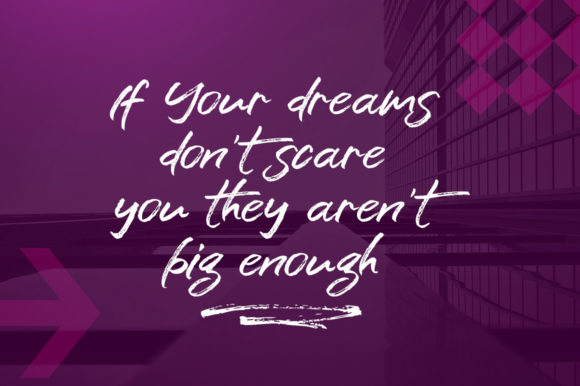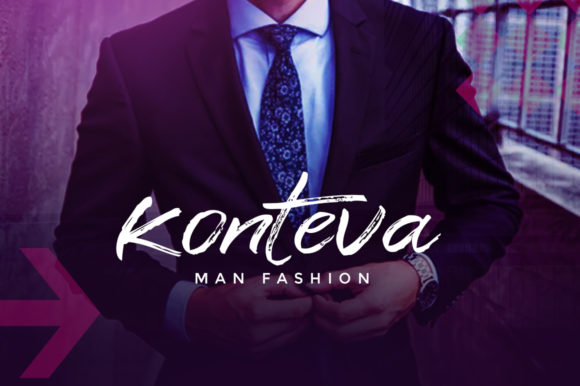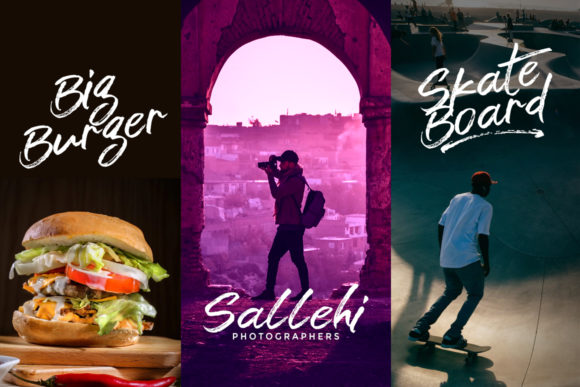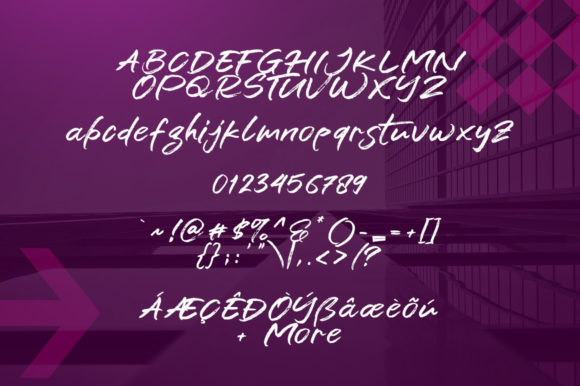
Introduction to Sentury Font
As a designer, have you ever been stuck on a project, searching for that perfect font to give it a unique touch? Maybe you’re working on a vintage-themed campaign, or perhaps you’re creating a retro-inspired graphic for a client. Whatever your creative project may be, the right font can make all the difference. That’s where the Sentury Font comes in – a fresh, handwritten brush font that exudes elegance and sophistication.
With its vintage feel, Sentury Font is the perfect design resource for any creative project that needs a touch of nostalgia. Whether you’re working on a high-quality brochure, a logo design, or even a free downloadable template, Sentury Font is sure to elevate your design to the next level.
Key Features of Sentury Font
- Each font style has a unique characteristic, such as bold or italic, to add variety to your design
- Perfect for designers and artists working on various creative projects, from logos to typography-based art
Honest Review: Sentury Font
I recently stumbled upon the Sentury Font, and I must say it’s been a game-changer for my design projects. With its clean and modern aesthetic, it’s perfect for creating a high-quality visual identity for your brand.
- ✨ High-quality design that looks great on both digital and print materials
- ⚠️ Limited font styles and variations, which might not be suitable for more complex design projects
- ⚠️ Not suitable for use in situations where a bold, attention-grabbing font is required
Overall, I’m thoroughly impressed with the Sentury Font. It’s a solid design resource that’s perfect for creative projects where a clean and modern aesthetic is desired. With its high-quality design and free download option, it’s definitely worth checking out.
Sentury Font is a high-quality, versatile font perfect for any creative project. This free download is a valuable addition to any designer’s toolkit, offering a transparent background for seamless integration with your design.
Sentury Font is ideal for a variety of projects, including logos, business cards, and marketing materials. Its versatility and high quality make it a valuable resource for designers.
Alternatives to Sentury Font
Great Vibes Font is a beautiful, high-quality script font perfect for creative projects that require a touch of elegance. It’s ideal for designing wedding invitations, menus, and other event materials. When to use: For projects that need a sophisticated, handwritten feel. How it compares to Sentury Font: Great Vibes Font has a more refined and polished look compared to Sentury Font, making it suitable for more formal events.
Carolyna Pro Font is a modern script font with a transparent background, making it easy to use as a design resource. It’s great for creating invitations, social media graphics, and other promotional materials. When to use: For projects that require a clean, minimalist design. How it compares to Sentury Font: Carolyna Pro Font has a more contemporary feel compared to Sentury Font, making it ideal for modern and trendy designs.
Alex Brush Font is a elegant, high-quality font perfect for designing logos, branding materials, and other creative projects. It’s ideal for projects that require a touch of sophistication and refinement. When to use: For projects that need a luxurious, high-end feel. How it compares to Sentury Font: Alex Brush Font has a more refined and polished look compared to Sentury Font, making it suitable for high-end designs.
Ostrich Sans Font is a modern sans-serif font with a transparent background, making it easy to use as a design resource. It’s great for creating digital products, web design elements, and other design materials. When to use: For projects that require a clean, modern design. How it compares to Sentury Font: Ostr